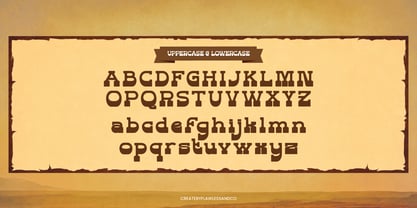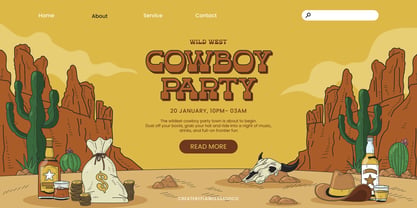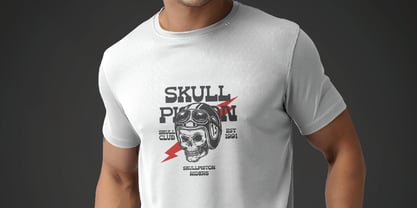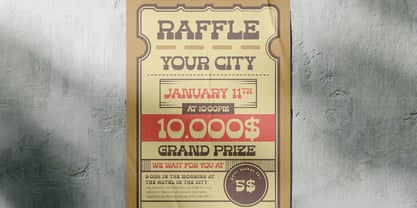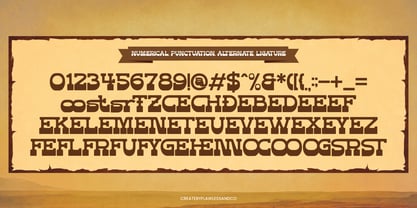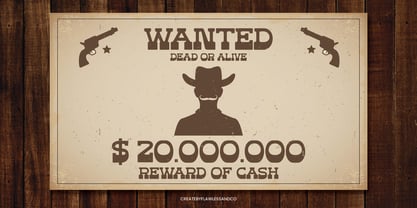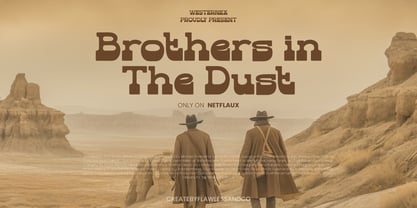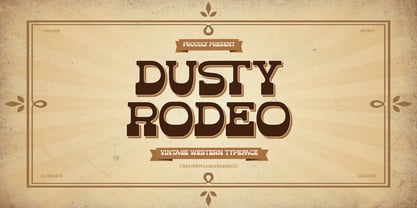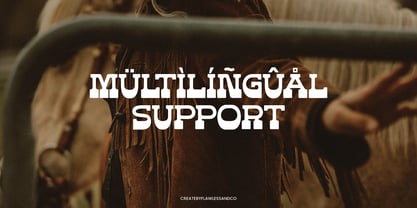
Dusty Rodeo
by Flawlessandco
The Dusty Rodeo Font Family was designed by Achmad Yani and published by Flawlessandco. Dusty Rodeo contains 1 styles. More about this family
Dusty Rodeo is a bold Western-style display font that captures the rugged charm of the Wild West. Inspired by classic rodeo posters and cowboy culture, this typeface delivers strong, vintage character with sharp edges and an unmistakable Western flair.
Features :
Multilingual, Uppercase alphabet A-Z, Lowercase alphabet a-z, Numbers 0-9, Some punctuation, Alternates & Ligatures